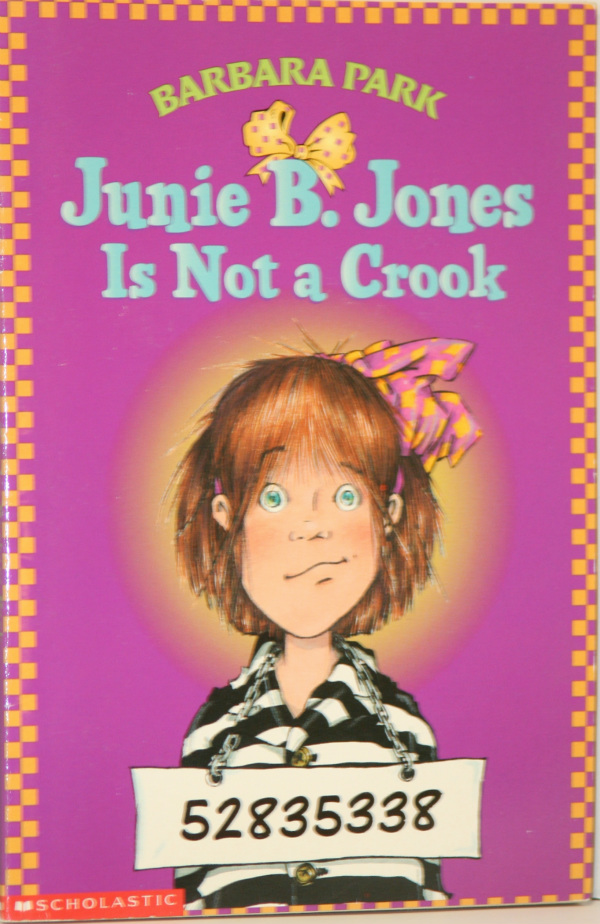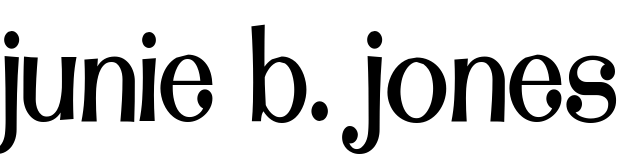
Junie B. Jones Font
BookJunie B. Jones is a series of children's books written by Barbara Park and illustrated by Denise Brunkus. The series follows the adventures and misadventures of a precocious young girl named Junie B. Jones as she navigates the challenges of kindergarten.
The font used for the book title on the cover of Junie B. Jones Is Not A Crook, which is shown above, is HFF Pure Vain. The series of books also goes by another title, as seen in the image below Junie B. Jones Is a Beauty Shop Guy, the font used is Vinnie Culture, a modern and upbeat font created by Vincent Pacella and Nick Curtis.